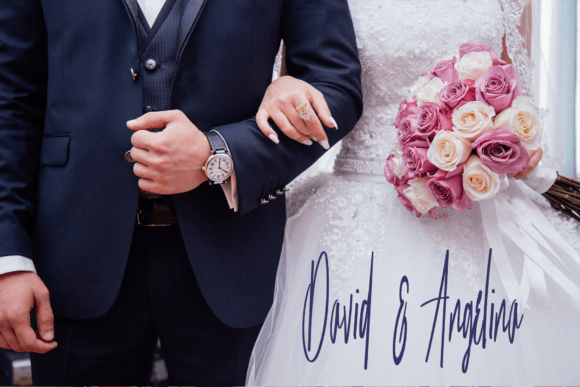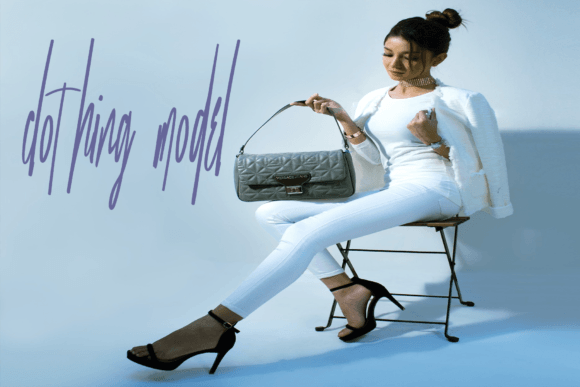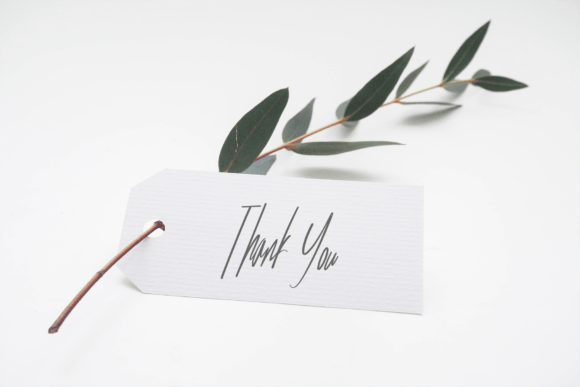
Bring Your Designs to Life with Aquality Handmade Font
Remember that moment when a great idea strikes you? The one where you envision a beautiful design, and all you need is the right tool to bring it to life? For designers, this is a familiar feeling, and it’s exactly where the Aquality Handmade Font comes in.
This cool, simple, and playful handwritten font is incredibly versatile, making it perfect for a wide range of designs. Whether you’re working on a creative project, a personal blog, or a commercial campaign, Aquality Handmade Font is sure to elevate your ideas to the next level. Its value lies in its ability to add a touch of personality and charm to any design, making it a must-have for designers looking to take their work to the next level.
Aquality Handmade Font Key Features
- Unique Characteristics: The font features a unique, handmade aesthetic with subtle imperfections and texture, giving it a warm and inviting feel
Aquality Handmade Font Review
Overall, I found Aquality Handmade Font to be a unique and charming addition to any design project. Here are some of its standout features: ✨
- Highly customizable: The font comes with a wide range of glyphs and character combinations, allowing for a high degree of personalization.
- Unique aesthetic: The handmade feel of the font adds a touch of personality to any text-based design, making it perfect for creative projects.
- Good legibility: Despite its handmade nature, the font remains easy to read and understand, even at smaller font sizes.
However, I did encounter a few limitations that may affect its usability: ⚠️
- Large file size: The font’s high level of customizability comes at the cost of a relatively large file size, which may slow down loading times.
- Limited support: The font may not be supported by all operating systems or devices, which could lead to display issues.
Overall, I would recommend Aquality Handmade Font for designers looking to add a unique touch to their projects. While it may have some limitations, its customization options and aesthetic make it a valuable addition to any design toolkit.
Getting the Most Out of Aquality Handmade Font
For the best results, use Aquality Handmade Font on text with a clear, simple background.
Avoid using this font on text with a lot of noise or clutter, as it may be difficult to read.
Aquality Handmade Font is ideal for:
- Home decor and furniture design
- Crafting and DIY projects Alternatives to Aquality Handmade Font
- Select a dark background color to make the font stand out.
- Use Aquality Handmade Font for menu item names and descriptions.
- Combine with other design elements like images of food and subtle textures to create a visually appealing design.
- Use high-quality images of food to create a mouth-watering effect.
- Add subtle textures to give the menu a tactile feel.
- Balance the design by using a clear and easy-to-read font for prices and other information.
- Select a elegant background color to match the font’s style.
- Use Aquality Handmade Font for the wedding invitation’s main text, such as the bride and groom’s names and the wedding date.
- Combine with other design elements like illustrations and floral patterns to create a whimsical design.
Project Ideas Using Aquality Handmade Font
Project 1: Aquality Handmade Menu Card
Create a unique and elegant menu card for your restaurant or cafe using Aquality Handmade Font. This font’s vintage and handwritten feel will add a personal touch to your menu.
To use Aquality Handmade Font in this project:
Project 2: Aquality Handmade Wedding Invitation
Create a beautiful and unique wedding invitation using Aquality Handmade Font. This font’s elegant and romantic feel will set the tone for a special day.